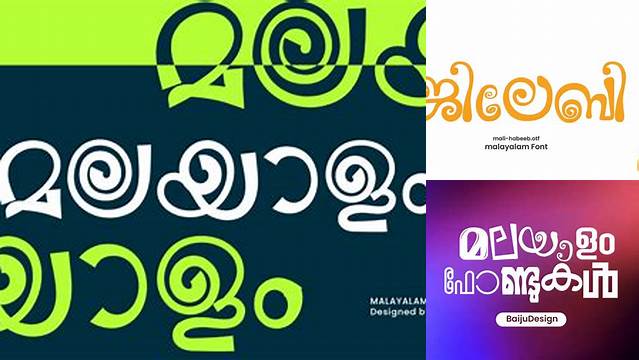
Looking to jazz up your projects with some awesome Malayalam fonts? You've come to the right place! This article dives deep into the world of free Google Malayalam fonts in TTF format. We'll explore everything from where to find them to how to use them, ensuring your text looks fantastic. Let's get started!
1. Understanding Malayalam Font Basics
Before we dive into the free downloads, let's get a handle on the basics. Malayalam, a Dravidian language spoken primarily in the Indian state of Kerala, has a unique script. The beauty of this script lies in its curves and intricate letterforms. When working with Malayalam text on computers, fonts are essential for displaying these characters correctly. TTF, or TrueType Font, is a common font format that ensures compatibility across various operating systems and applications. So, understanding the basics of Malayalam fonts is very important. This includes knowing about the character set, the different styles available (like bold, italic, and regular), and how they render on different devices. A good grasp of these fundamentals will help you choose the right font for your needs and troubleshoot any display issues you might encounter.
We need to consider things such as legibility, especially when the text is displayed on screens. Some fonts are designed to be more readable at smaller sizes, while others are better suited for headlines or display purposes. Also, think about the overall tone and style of your project. A formal document might require a different font than a creative poster or website design. Knowing these aspects will ensure that you select a Google Malayalam font which is right for your work.
2. Why Choose Google Fonts for Malayalam?
Google Fonts is a treasure trove for designers and content creators alike. It offers a vast library of high-quality, open-source fonts that are completely free to use. This means you can incorporate them into your projects without worrying about licensing fees. For Malayalam, Google Fonts provides several excellent options that cater to different design needs. These fonts are not only free but also optimized for web use, ensuring they load quickly and display correctly on various devices and browsers. Furthermore, Google Fonts are constantly updated and improved, guaranteeing a consistent and reliable experience. This makes Google Malayalam fonts an ideal choice for anyone looking to enhance their digital content with beautiful and functional typography.
Another great advantage of using Google Fonts is the ease of integration. Whether you're working on a website, a mobile app, or a desktop application, incorporating Google Malayalam fonts is incredibly straightforward. The platform provides simple code snippets that you can embed directly into your HTML or CSS files, allowing you to start using the fonts immediately. Plus, Google Fonts offers various customization options, such as adjusting the font weight and style, to perfectly match your design aesthetic. The accessibility and convenience of Google Fonts make it a go-to resource for anyone working with Malayalam text in digital environments.
3. Top Google Malayalam Fonts Available for Free
Alright, let's get to the good stuff! Here are some of the top Google Malayalam fonts you can download for free in TTF format:
- Manjari: A clean and modern sans-serif font that's perfect for body text. Its excellent readability makes it suitable for websites, documents, and mobile apps.
- Rachana: A classic serif font with a traditional feel. It's ideal for formal documents, books, and projects that require a touch of elegance.
- Meera: Another great sans-serif option with a slightly more playful and rounded design. It works well for headlines, posters, and creative projects.
These fonts are just a starting point. The Google Fonts library is constantly expanding, so be sure to explore and discover new options that fit your specific needs. Each font has its unique characteristics, and experimenting with different styles can significantly enhance the visual appeal of your content. Consider the overall tone and purpose of your project when selecting a font. A modern website might benefit from a sleek sans-serif font like Manjari, while a traditional print document might look better with a classic serif font like Rachana. Don't be afraid to try different combinations and see what works best for you.
21. Best Practices for Using Malayalam Fonts